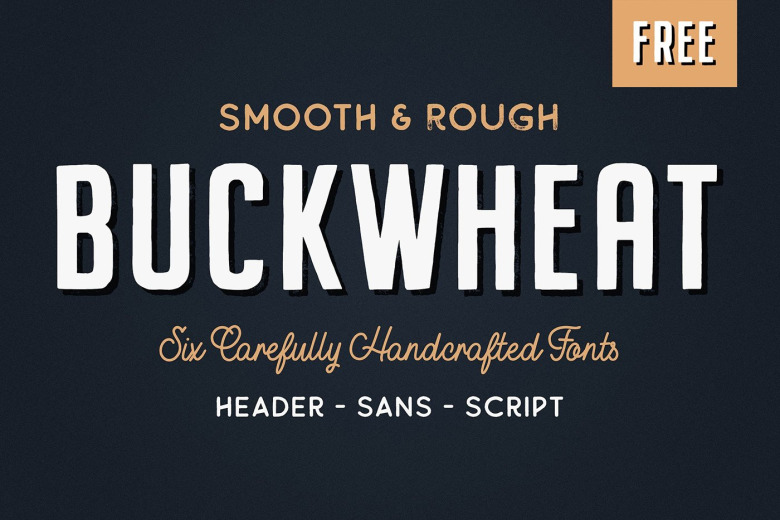
Buckwheat Font
Introducing Buckwheat Vintage Font Collection. It is designed by Tom Chalky. Each and every font within the brand new Buckwheat Collection was carefully created to be timeless, super versatile, and effortlessly cohesive. An essential kit to come back to time and time again for any number of design projects; from clean and modern, to rough and organic.